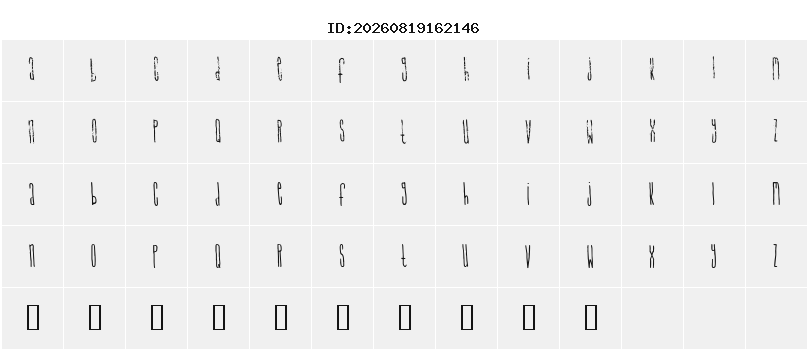
• Font Name: Signal To Noise
• Full Font Name: Signal To Noise
• Version: Revision 2 (Noise)
About Signal To Noise.ttf
Signal To Noise.ttf is a modern, elegant sans-serif font designed for ultimate readability and visual harmony. Perfect for branding, headlines, web design, and print materials.